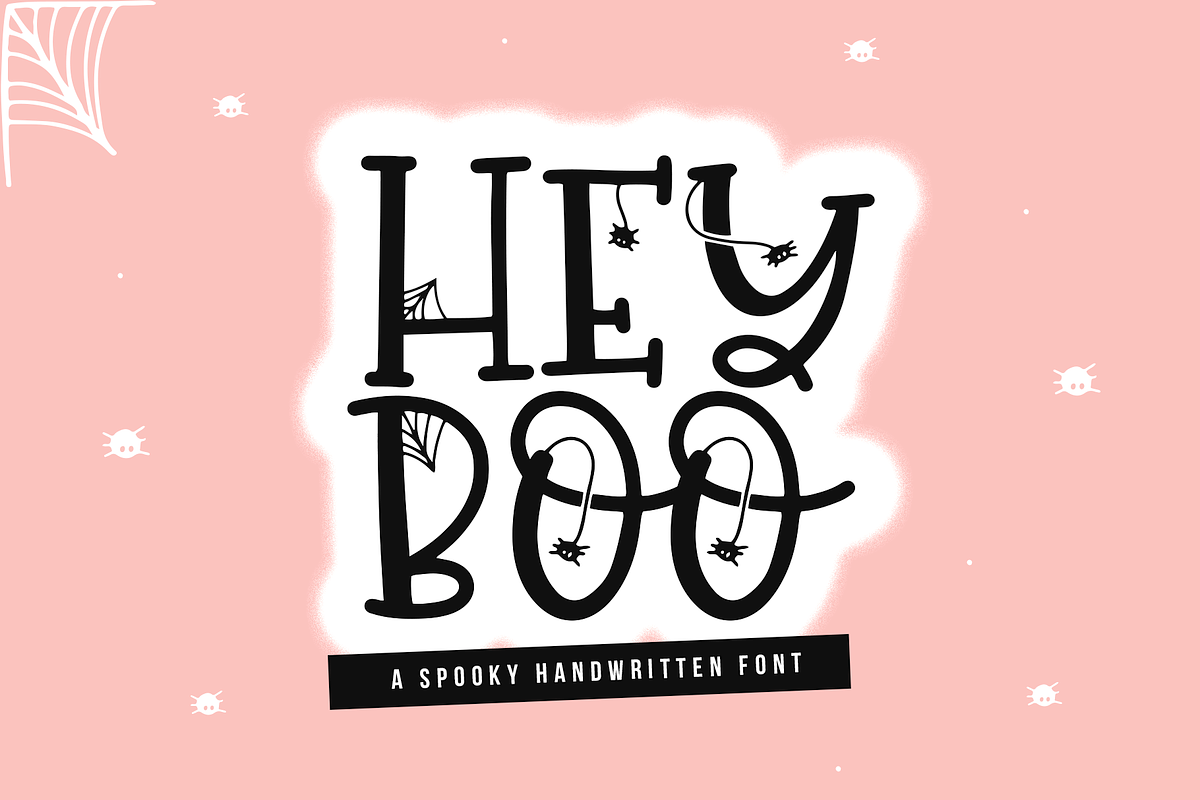
Hey Boo - Spooky Halloween Font Free Download
Please note, to use this font for commercial purposes, you must purchase the full version. Hey Boo is a fun and spooky Halloween font that brings an eerie and playful vibe to your designs. With its quirky letterforms and Halloween-inspired style, this font is perfect for creating party invitations, Halloween-themed branding, spooky posters, and other festive projects. Whether you're designing for a haunted house event, a Halloween party, or a spooky logo, Hey Boo adds a unique, spooky touch to your work. Test it out and enjoy free download access for personal use. Experience the spooky fun of Hey Boo - Spooky Halloween Font Free Download before purchasing the commercial license. Add a touch of Halloween magic to your designs with Hey Boo.